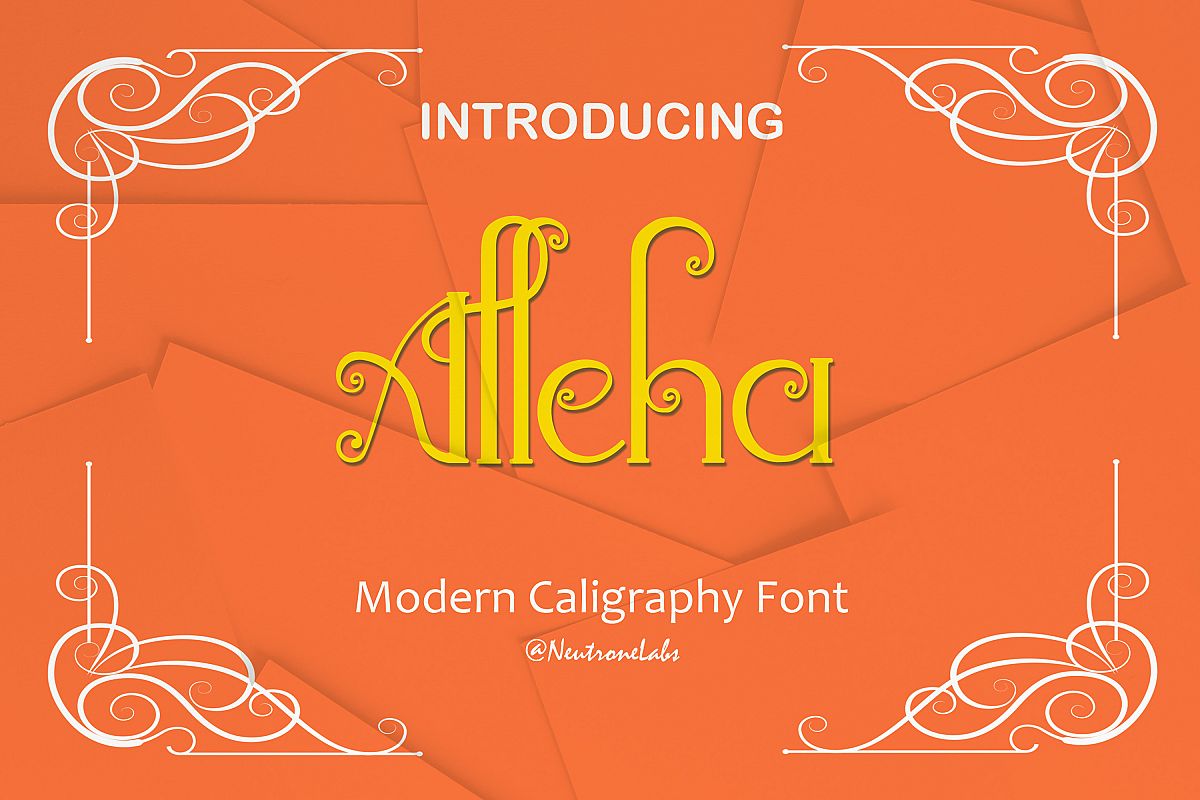
Alleha
alleha
INTRODUCING
Alleha
My new font is beautiful and smooth modern calligraphy "Alleha",
imperfect style ups and downs,like a dance letters, smooth, clean and
simple. alleha font will look beautiful on Christmas and holiday
invitations, wedding invites and stationery, logos, and more... :)
every single letters have been carefully crafted to make your text looks beautiful.